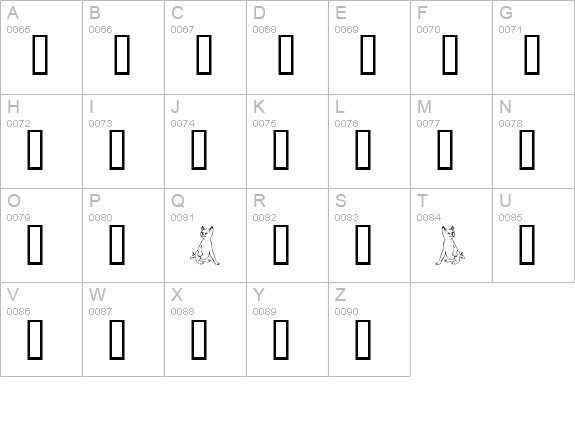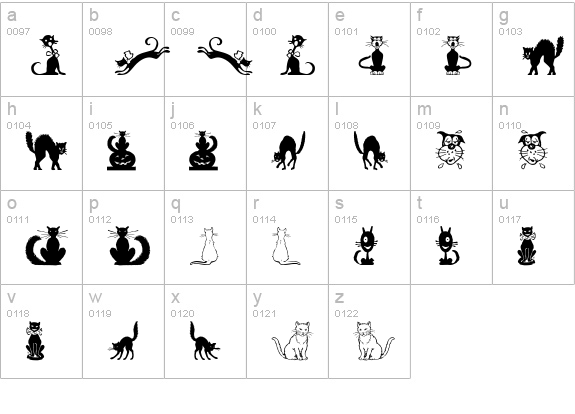
Border Cats font is a whimsical and playful typeface that exudes charm and character. With its unique design inspired by feline elements, this font is perfect for adding a touch of creativity to your projects. The curvy lines and intricate details give Border Cats a fun and dynamic appearance that will surely catch the eye. What's even better is that Border Cats font is available for free download at FontsMarket.com. So, you can easily add this delightful font to your collection without any cost. Whether you're working on a design project, crafting personalized invitations, or simply looking to spice up your text, Border Cats font is a fantastic choice that will bring a smile to your face. Let your creativity run wild with this charming and freely available typeface.